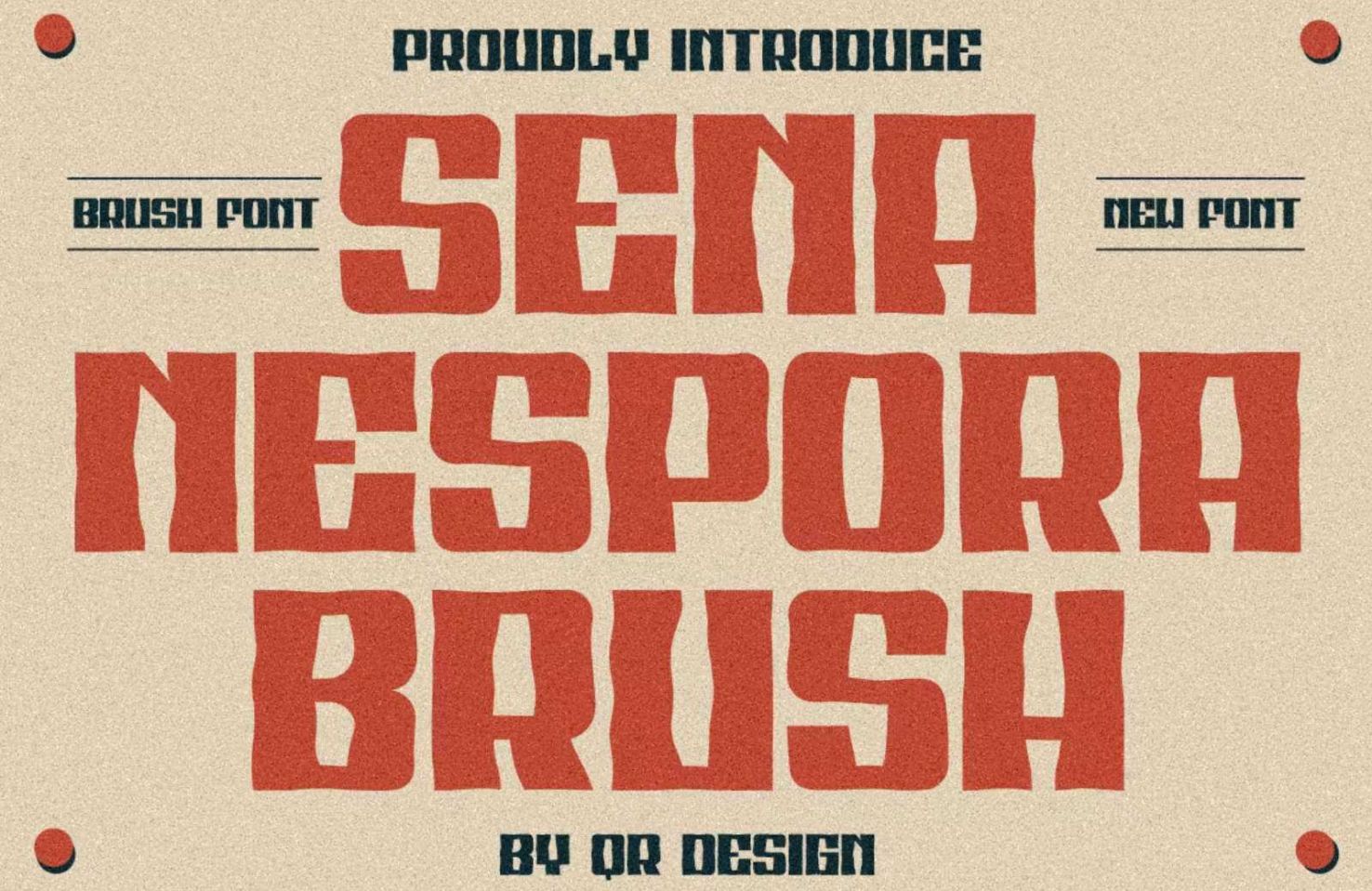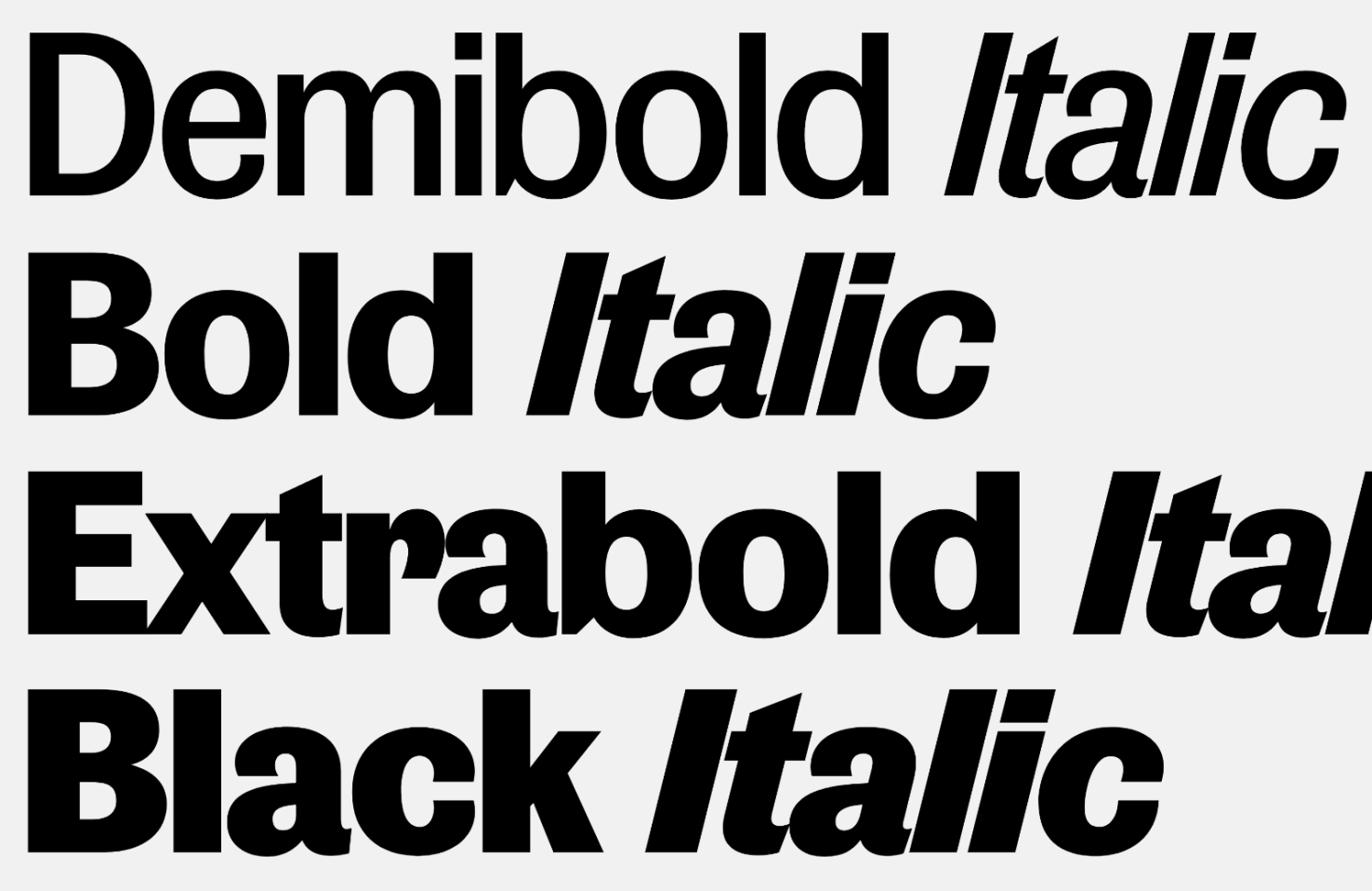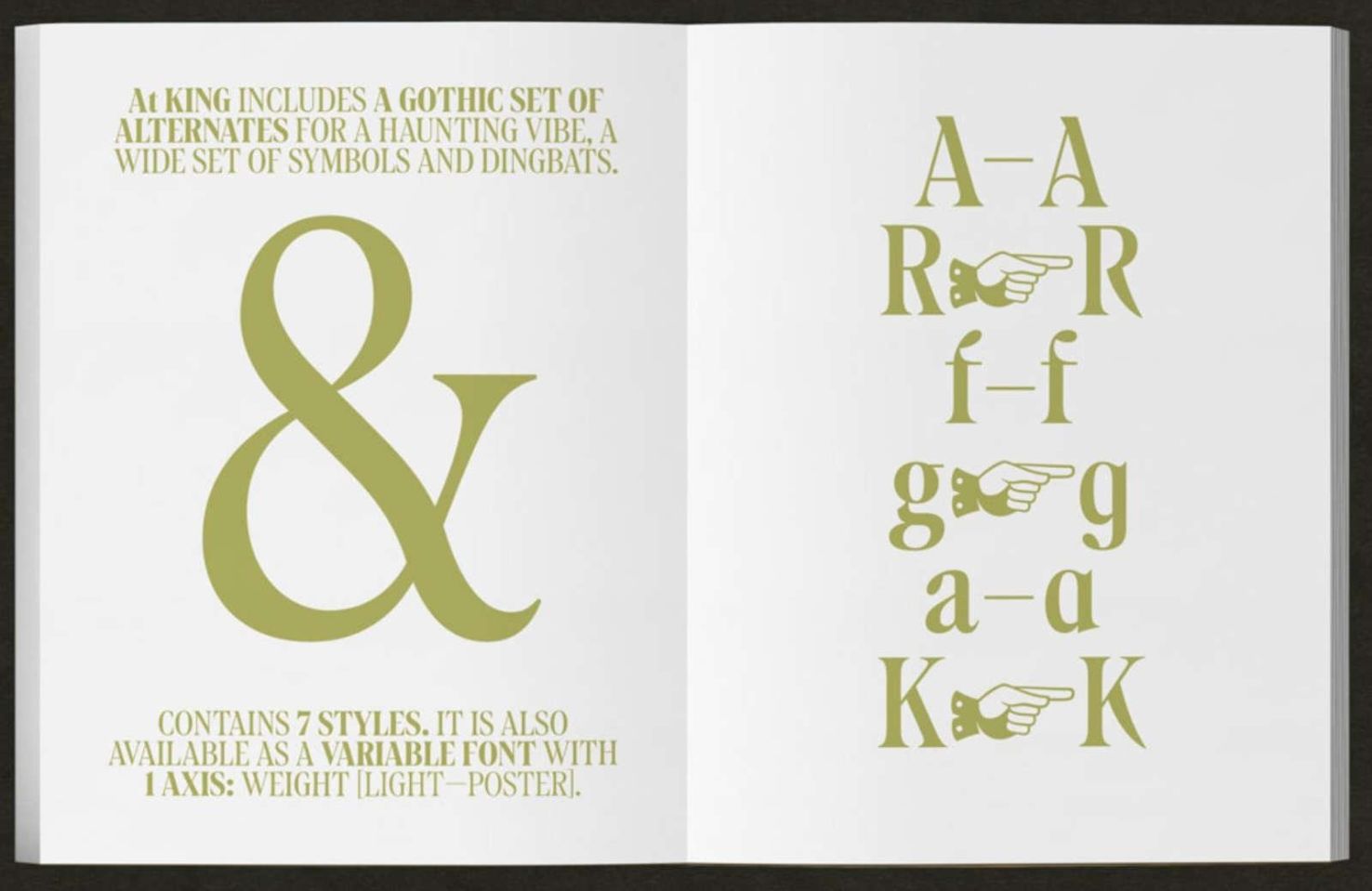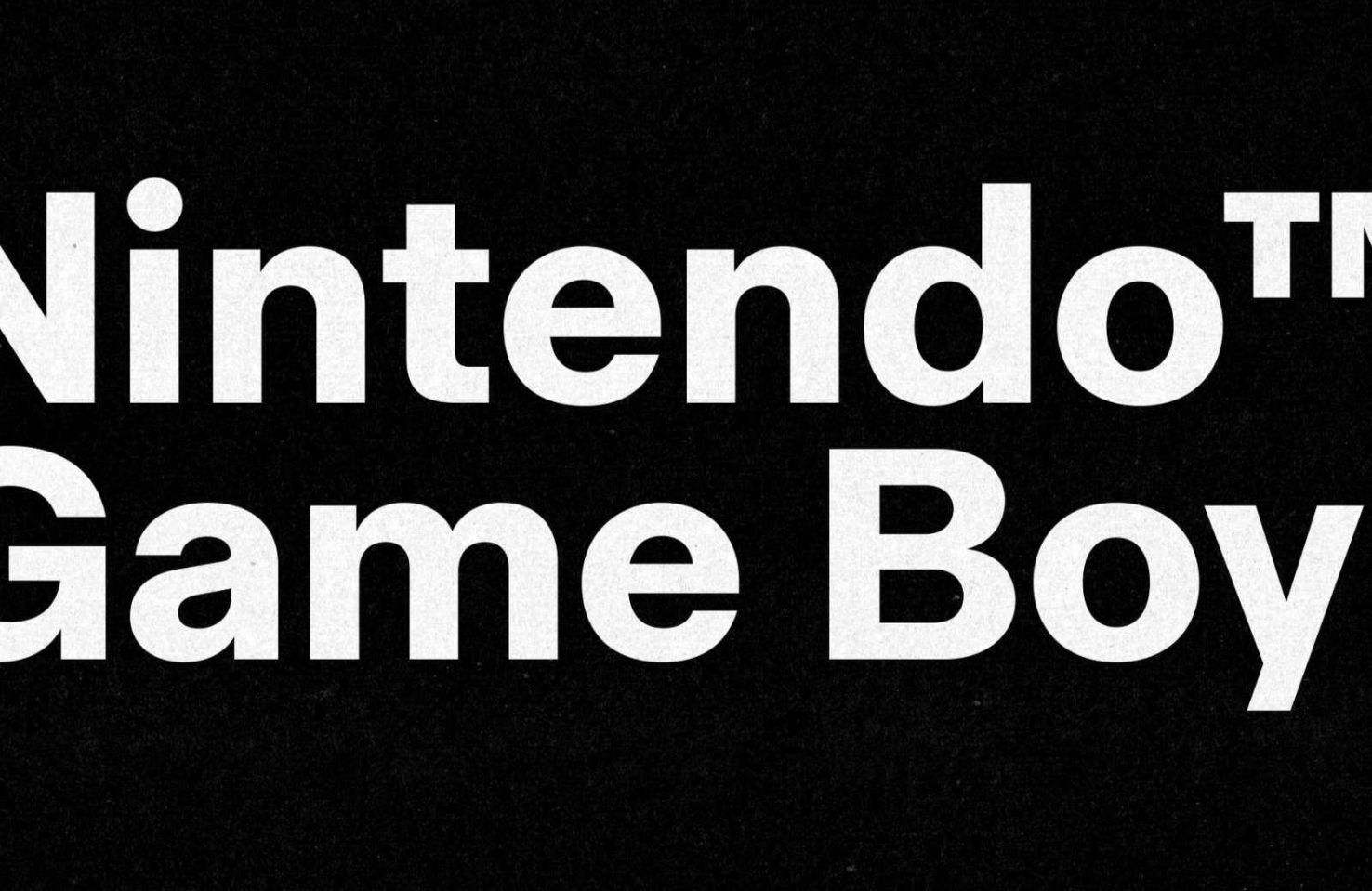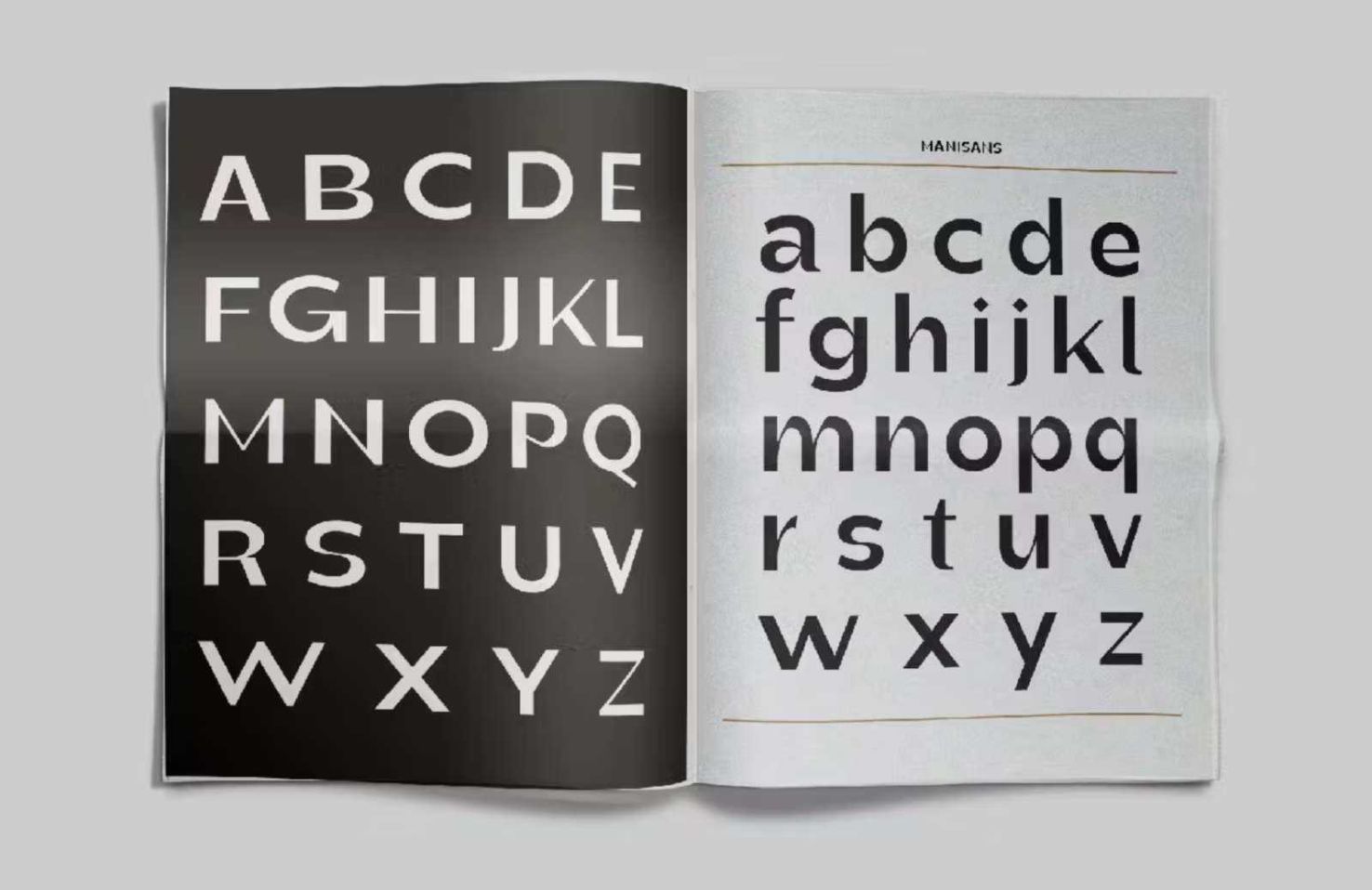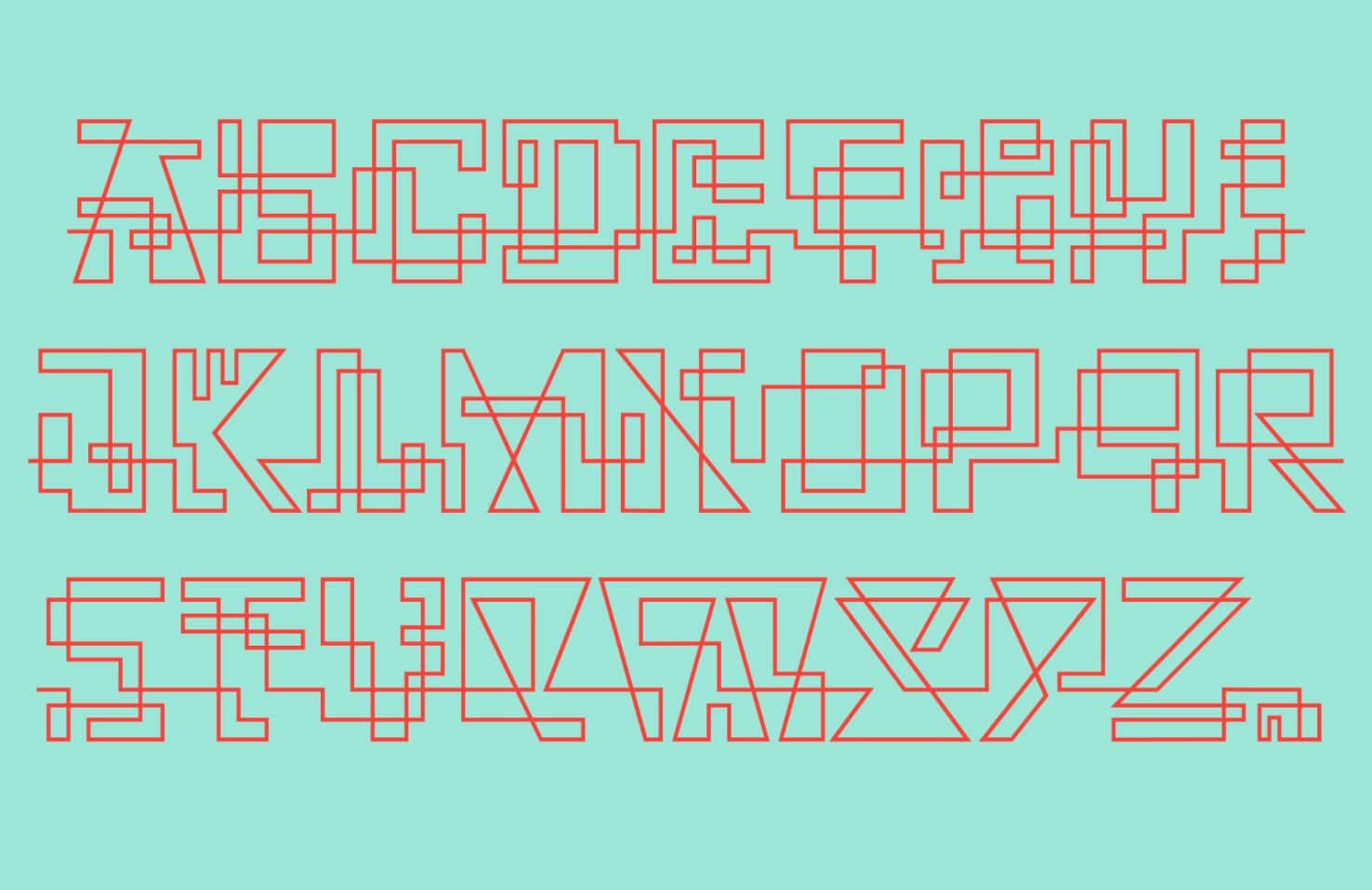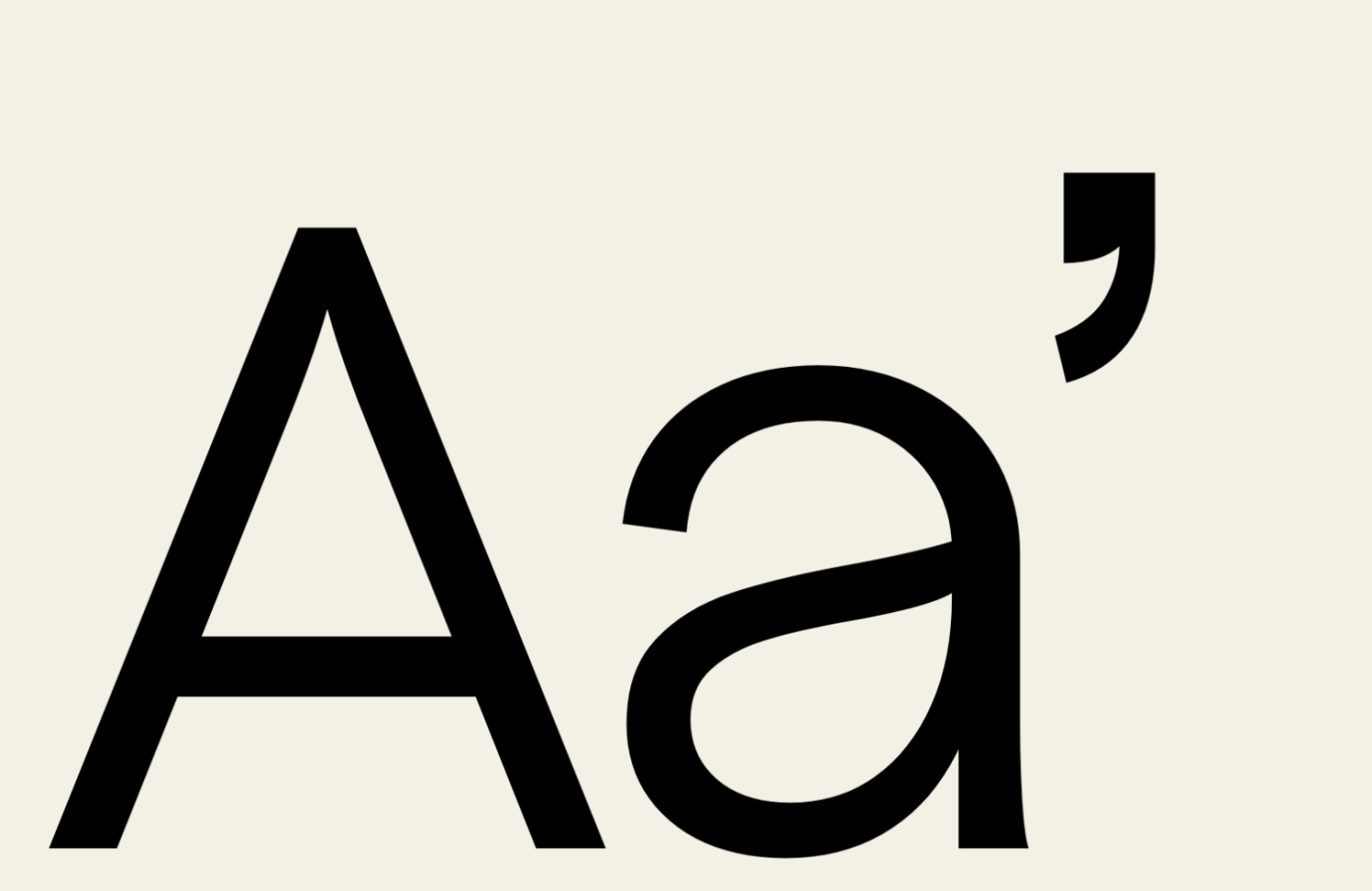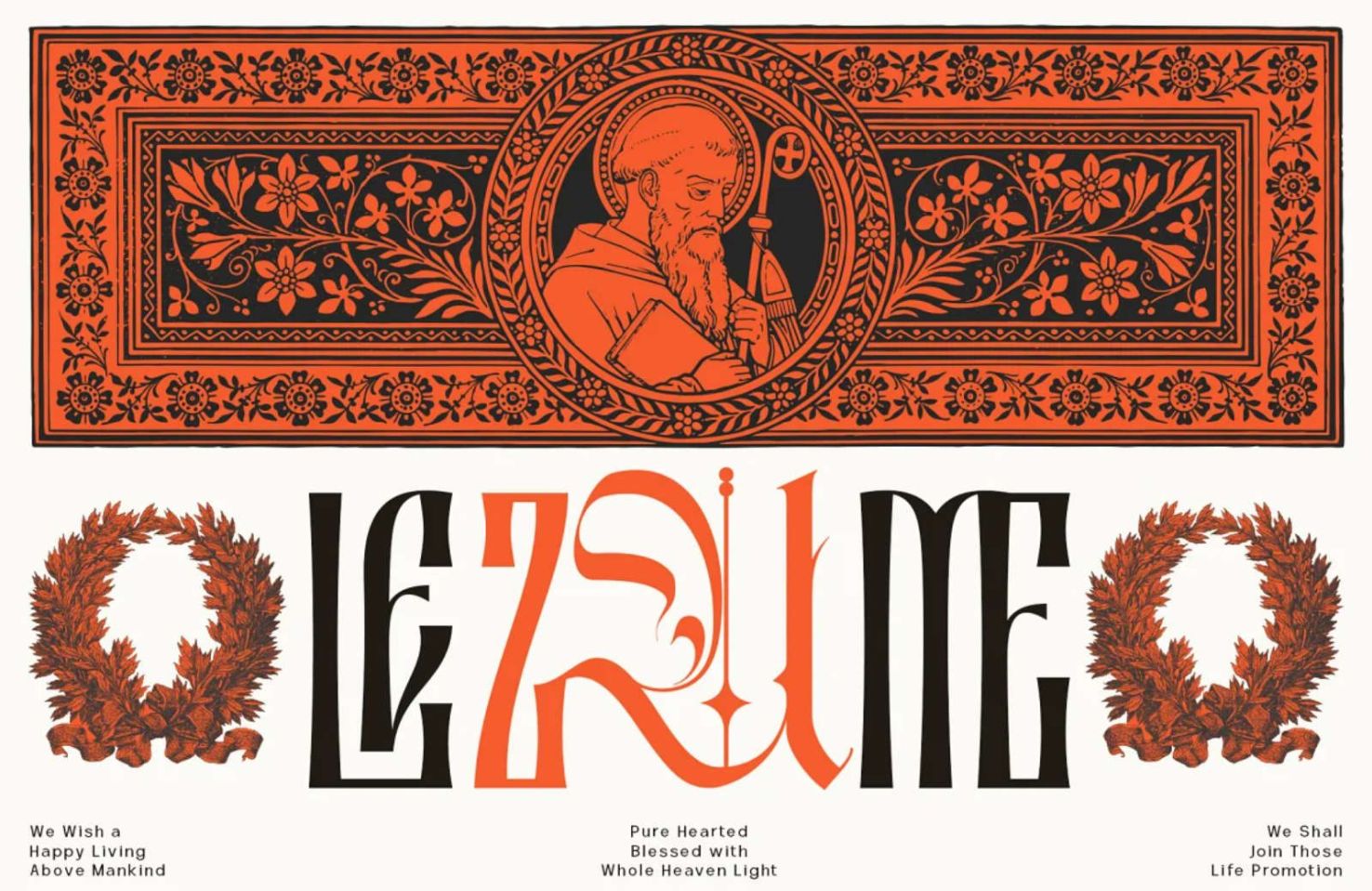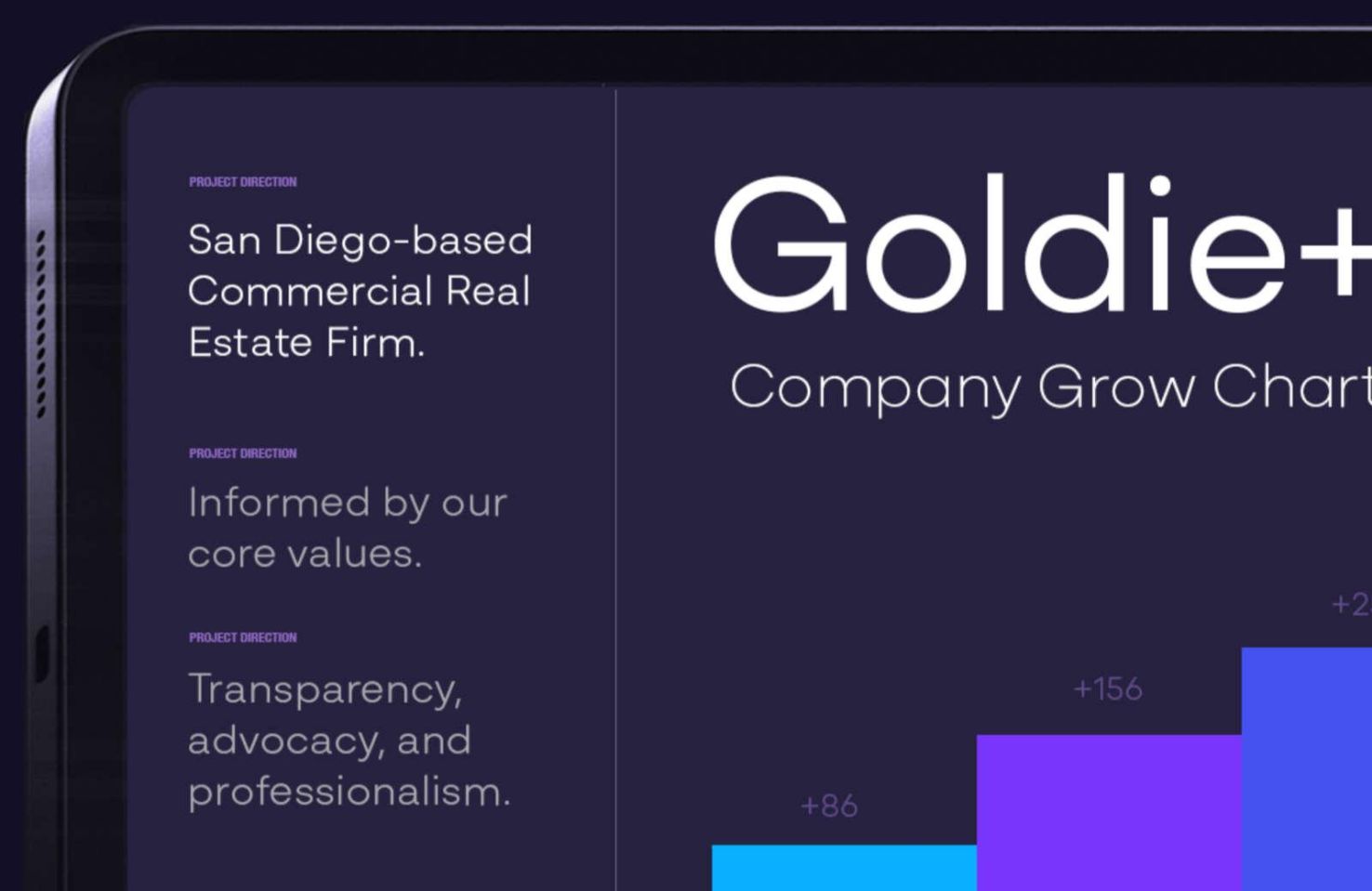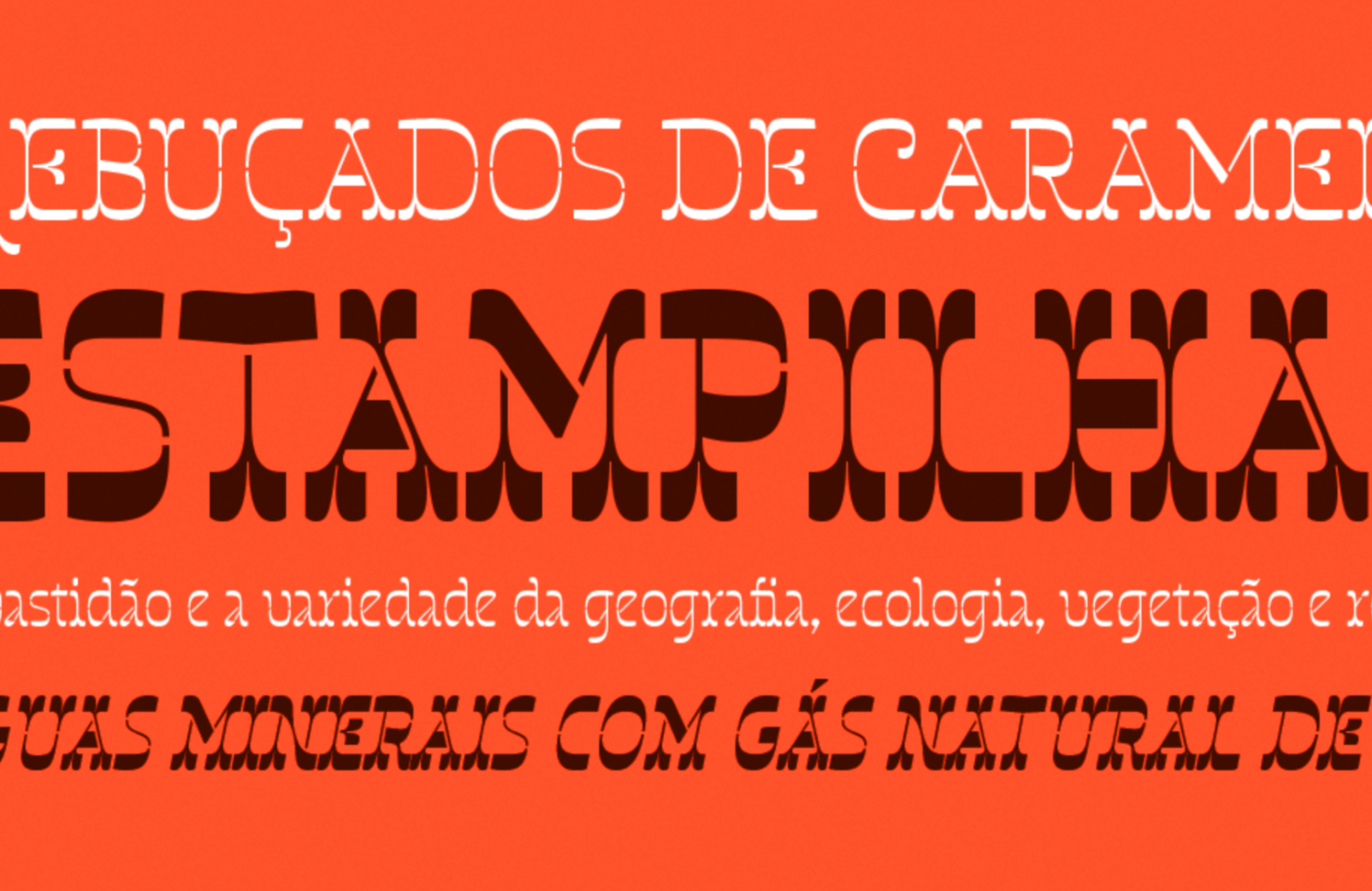
Publish Serif
The Publish family consists of Publish Gothic, Public Sans, and Publish Serif. It was originally designed for the short-lived Danish newspaper Dagen” and is now available publicly. It’s a versatile set of fonts with a range of weights, making it ideal for editorial work.
Publish Gothic
Octavia
Tida Tep designed Octavia as part of her degree project at Type@Cooper in New York. Inspired by 1940s and 1950s film noir titles and end credits, it is highly legible at small sizes and works brilliantly in dark mode. The regular weight is available now, and fifteen further styles, from hairline to black, will be available soon.
Octavia
Ipar
Ipar is an experimental typeface with zero contrast, not even optical corrections, intended to create a clean and modern look. Styled after Austrian street and city signs, it’s a very usable typeface for UI design, and it has a series of stylistic alternatives that are useful for logo design.
Ipar
Sena Nespora Brush
Sena Nespora Brush is a bold all-caps display font with a charming wavy outline that looks like you’re viewing the text through water. It’s a perfect choice for logos related to all things aquatic.
Sena Nespora Brush
Matcha
Matcha is a beautiful retro stencil font with swooping organic shapes and open counters. It’s an excellent choice for editorial or branding work in the lifestyle sector.
Matcha
At King
At King is a slightly rebellious old-style serif. It features sharp serifs and rounded terminals, giving it a vintage feel suitable for branding or headlines. The lowercase f is particularly characterful. It’s available in seven weights and has a variable font version.
At King
Decagram
Decagram is a neo-grotesque font that draws its influence from the international style, with a hint of 90s-era aesthetics. It has a wide skeleton, and a generous x‑height, making it readable and relaxed. It’s a very robust choice for almost any application. There are ten weights, plus italics and a variable font.
Jokker
Jokker is a geometric sans serif that eschews the trend for humanist leanings in constructed typefaces. The forms are circular, straight, or diagonal, and it has short ascenders and descenders to make headings feel compact. Look carefully, and you’ll see subtle smiles hidden amongst the forms.
Jokker
WEG
WEG is an experimental type system that doesn’t care if you can read it or not. The letters are made from a single stroke that connects words, and the legibility increases as the thickness decreases. It’s a nice starting point for logo design or just for playing with, to understand how letters are formed.
WEG
Manisans
Manisans is a sans serif with high contrast between the vertical and horizontal or diagonal strokes. The contrast gives it a particularly offbeat look, and it’s a great choice for branding or display type.
Manisans
Runholdy
Runholdy is a narrow, all-caps serif just a short hop from Blackletter. The flared serifs create a very precise look, and some beautiful alternate characters are included that lend the type a medieval aesthetic.
Runholdy
Spezia
Spezia is a sans-serif typeface designed to be contemporary and visually balanced. It features a modern spirit and a neo-grotesque structure, which together create a sense of simplicity. The typeface is available in standard and variable versions, with a range of weights and widths.
Spezia
Gretha
Gretha is a modern serif with high contrast, pointed serifs, plus tons of ligatures and alternatives. It’s a good option for branding or display use when you can be selective about the glyphs you use.
Gretha
Invertida
Invertida is a decorative slab serif that uses reverse contrast to evoke the style of the Old West. There’s a stencil version available that’s a nice companion. It’s a great choice for editorial work or even branding that needs to feel vintage but only use it at display sizes.
Invertida
Mozaic
Mozaic is a family of geometric sans serifs that complement and support each other. It’s a workhorse set ideal for corporate branding, with extensive coverage of Latin-based languages, plenty of alternates, and specialist characters like fractions and tubular and old-style numerals.
Mozaic